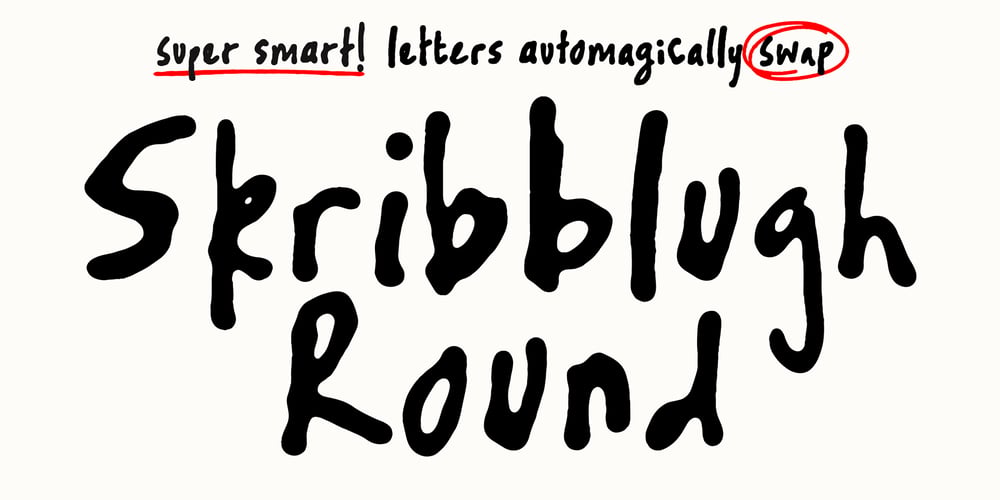
TC Skribblugh Soft
TC Skribblugh Soft font
TC Skribblugh Soft Font Family was designed by Tom Chalky and published by Tom Chalky. TC Skribblugh Soft contains 4 styles and family package options. Skribblugh Round is a big, bold, and lively handcrafted powerhouse designed to turn up the personality and spontaneity of your designs. Its playful character and authentic imperfections bring a human touch to any project, making it ideal for brands looking to stand out with a unique, handwritten feel.This quirky font family comes with three versatile weights—Light, Regular, and Bold—each packed with 510 glyphs, including four stylistic alternates for every letter. Say goodbye to mechanical repetition! Skribblugh Round brings a secret weapon – smart contextual alternates that ‘automagically’ swap letter styles for maximum authenticity. Designed with Latin 1 extended multilingual support, it covers a wide range of Western languages, making Skribblugh Round a reliable choice for global campaigns. Whether for bold headlines, dynamic packaging, or eye-catching social media posts, this font has been designed to look great in all sizes.